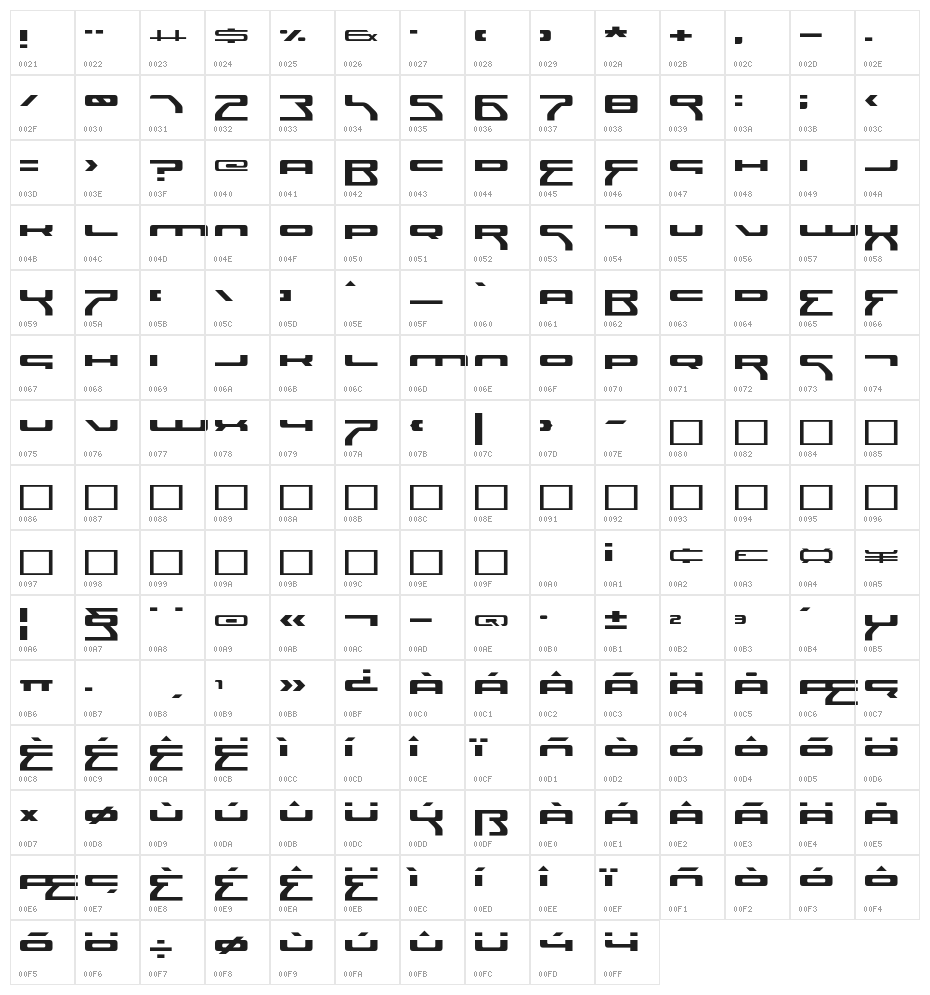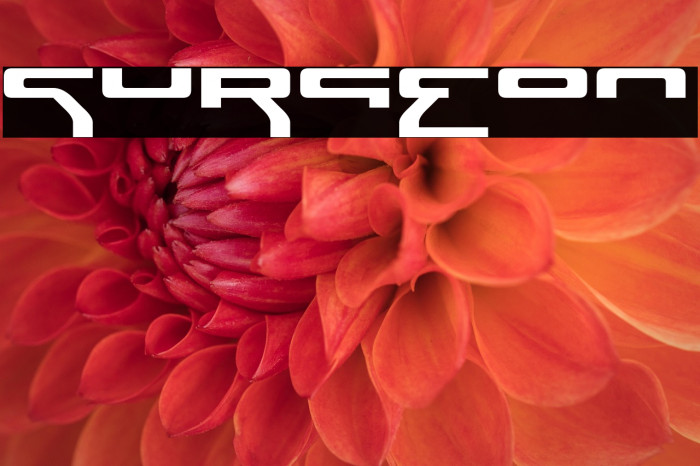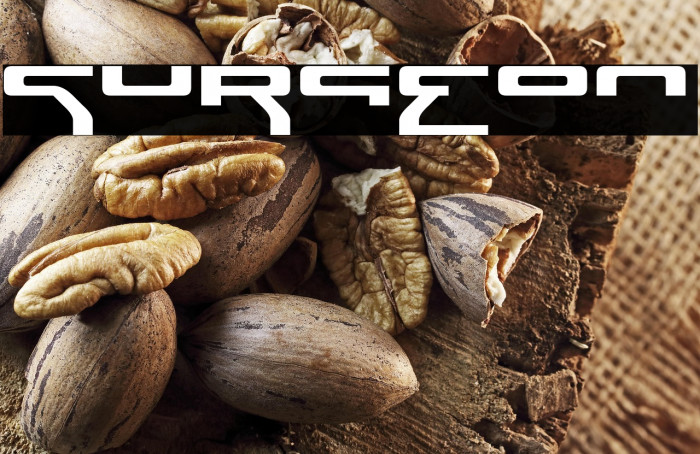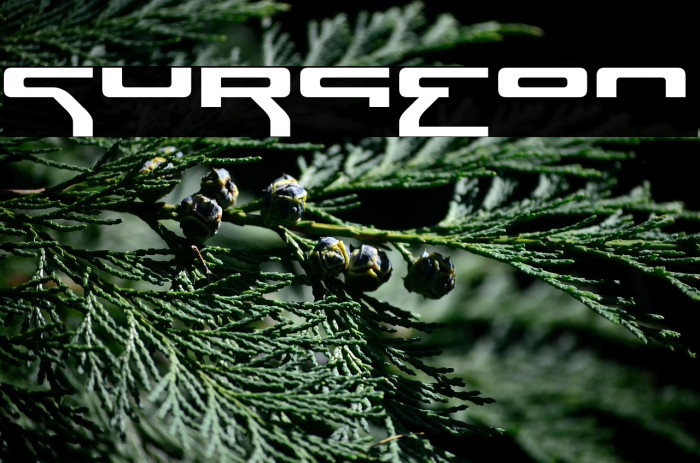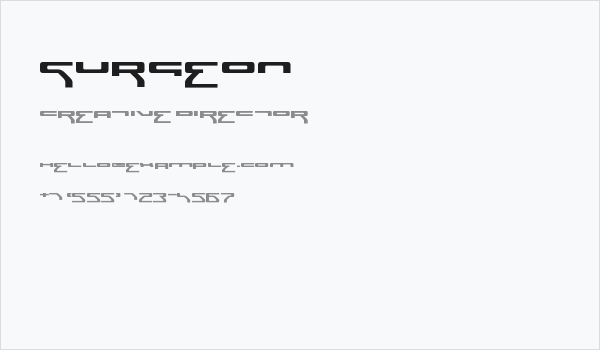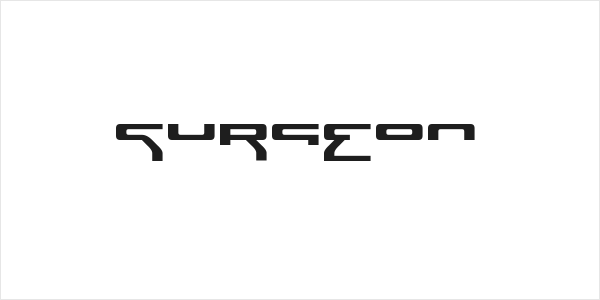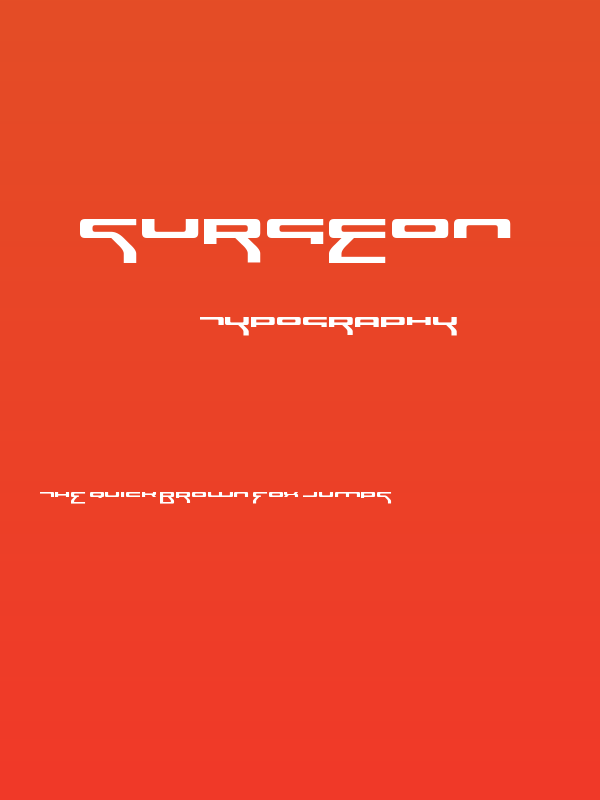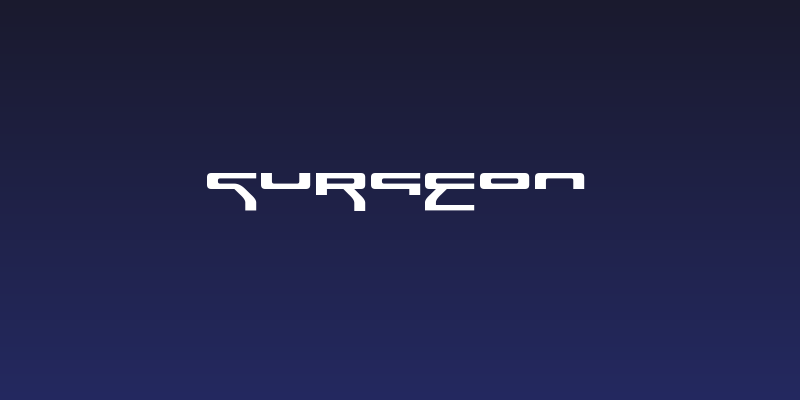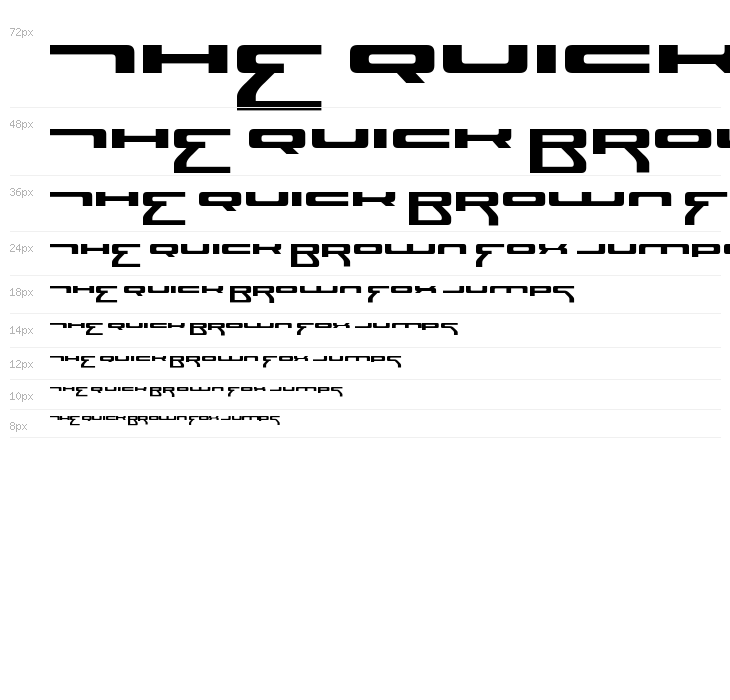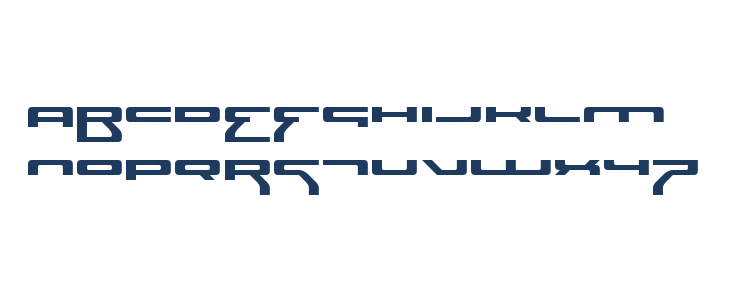
Surgeon Font
Surgeon Description
This font features a futuristic and geometric design, characterized by sharp angles and a distinct, mechanical appearance. The uppercase letters are bold and structured, with a consistent height and width that gives them a uniform look. The lowercase letters maintain the same angular style, providing a cohesive aesthetic throughout the font. Numbers and special characters are designed to match the overall theme, with unique shapes that enhance the modern and technical feel. The font's design is ideal for projects that require a cutting-edge, tech-inspired look.
| Proposed Projects | Ideal for technology branding, sci-fi posters, video game interfaces, and modern digital art. |